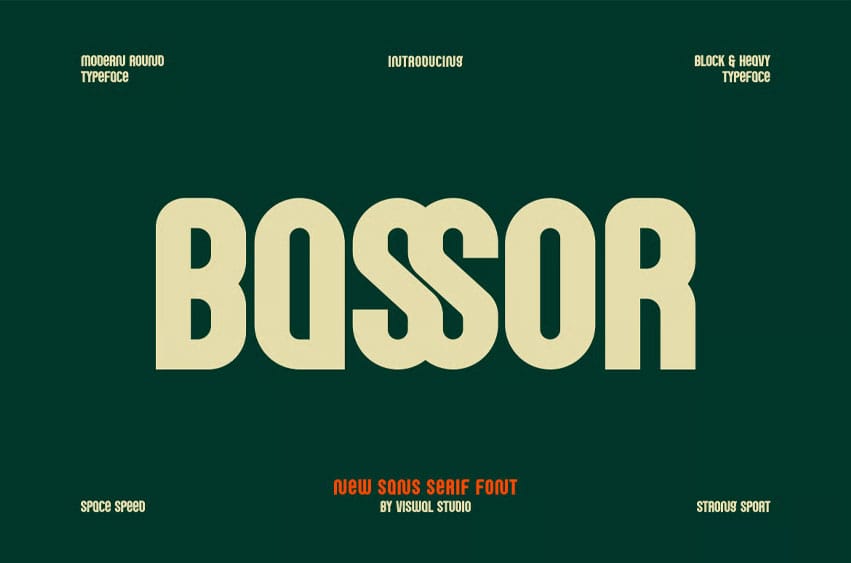
Bassor is a modern, rounded font that enhances the clarity of your message in any design. It is perfect for logos, labels, badges, branding, magazines, posters, titles, gigs, covers, and more. Our font includes uppercase and lowercase letters, numerals, punctuation, and OpenType features.
For stunning designs, you can mix it with other fonts as complementary styles.